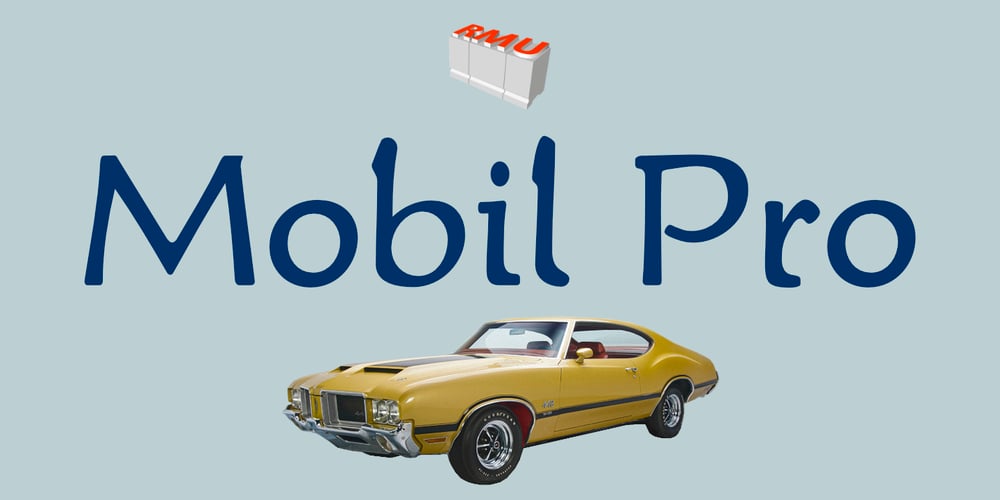
Mobil Pro Font Family was designed by Ralph M. Unger and published by RMU. Mobil Pro contains 2 styles and family package options. In 1960 Ludwig & Mayer released this Matheis design which was completely redrawn, digitized and extended for most main European languages, West and East.To take advantage of all ligatures in this font, I recommend to activate both OT features, standard and discretionary ligatures.